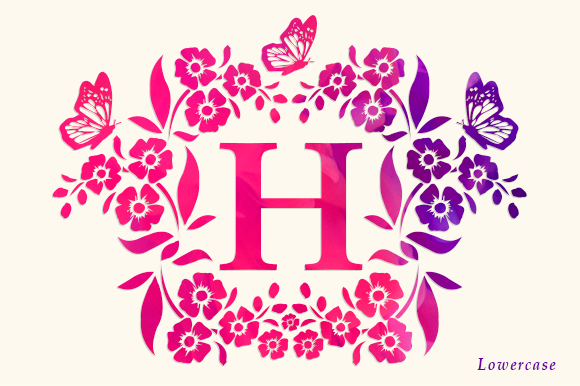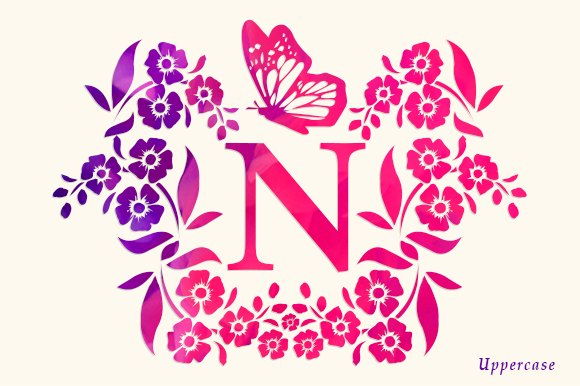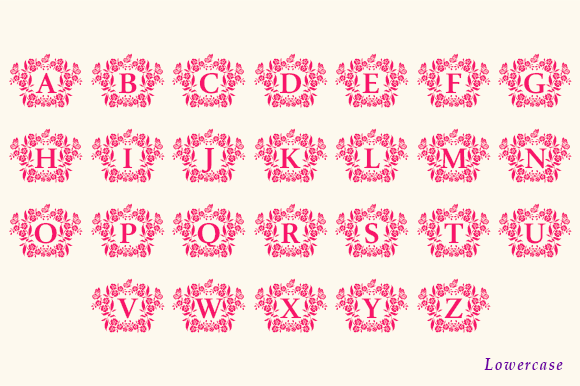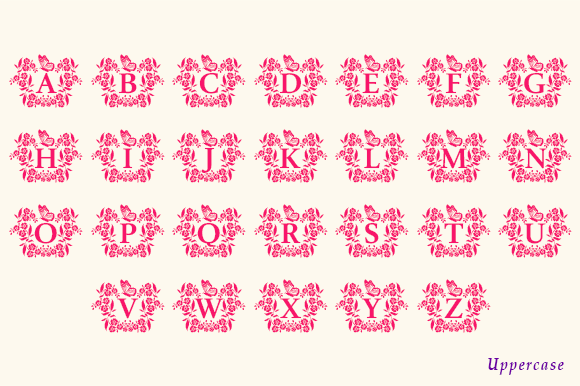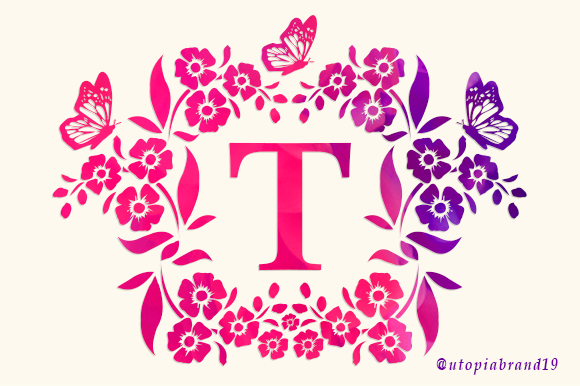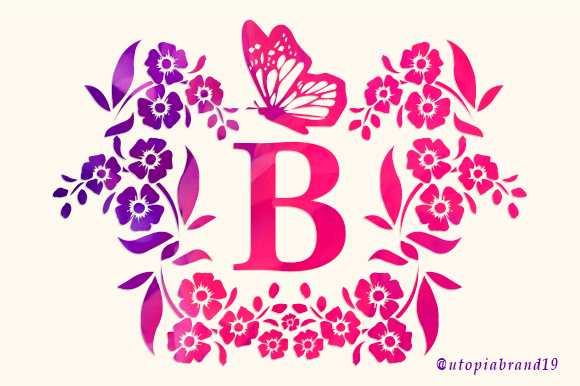
Introducing the Flower Butterfly Monogram Font: Elevate Your Designs with Elegance
Are you a designer or crafter looking for a unique and captivating font to take your creative projects to the next level? Look no further than the Flower Butterfly Monogram Font, a stunning decorative font that is sure to leave a lasting impression. With its intricate details and beautiful ornaments, this font is perfect for those who want to add a touch of elegance and sophistication to their designs.
A Ravishing Decorative Font
The Flower Butterfly Monogram Font is a ravishing decorative font that features incredibly detailed ornaments, including delicate flowers and butterflies. Its unique style is sure to fall in love with, and its versatility makes it perfect for a wide range of design applications. Whether you’re creating wedding invitations, branding materials, or social media graphics, this font is sure to make your designs stand out.
Unique Style and Spectacular Designs
What sets the Flower Butterfly Monogram Font apart from other fonts is its unique style, which is both elegant and playful. The font’s intricate details and beautiful ornaments make it perfect for creating spectacular designs that are sure to capture the attention of your audience. Whether you’re a seasoned designer or a crafter just starting out, this font is sure to inspire you to create something truly special.
The Flower Butterfly Monogram Font is perfect for designers and crafters who want to add a touch of elegance and sophistication to their designs. Whether you’re creating digital or print materials, this font is sure to make your designs stand out. Its versatility makes it perfect for a wide range of design applications, including:
- Digital and print advertisements
- Craft projects, such as scrapbooking and card making
Key Features of the Flower Butterfly Monogram Font
The Flower Butterfly Monogram Font has several key features that make it a must-have for designers and crafters. These include:
- Incredibly detailed ornaments, including delicate flowers and butterflies
- Unique and elegant style
- Versatility and flexibility, making it perfect for a wide range of design applications
Tips for Using the Flower Butterfly Monogram Font
To get the most out of the Flower Butterfly Monogram Font, here are a few tips:
- Use it sparingly: While the font is beautiful, it’s best to use it sparingly to avoid overwhelming your design.
- Pair it with other fonts: The Flower Butterfly Monogram Font pairs well with other fonts, such as script fonts and sans serif fonts.
- Experiment with different colors: The font looks great in a variety of colors, so don’t be afraid to experiment and find the perfect color for your design.
- Use it to add a personal touch: The font is perfect for adding a personal touch to your designs, such as a monogram or a special message.
In conclusion, the Flower Butterfly Monogram Font is a beautiful and versatile font that is perfect for designers and crafters who want to add a touch of elegance and sophistication to their designs. With its intricate details and beautiful ornaments, this font is sure to make your designs stand out. Whether you’re creating wedding invitations, branding materials, or social media graphics, this font is sure to inspire you to create something truly special.